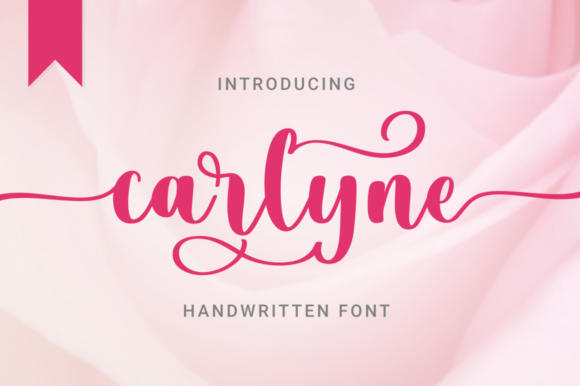
The Perfect Blend of Whimsy and Charm: Discovering the Carlyne Font
There’s something magical about a handwritten font that can evoke a sense of nostalgia and warmth. It’s the kind of font that makes you feel like you’re writing a heartfelt letter to a loved one, or crafting a beautiful wedding invitation that will be treasured for years to come. For designers, finding the right font can be a game-changer – and that’s exactly what the Carlyne Font offers.
With its soft and delicate feel, the Carlyne Font is perfect for creating gorgeous stationery art, eye-catching social media posts, and cute greeting cards. And the best part? It’s PUA encoded, making it incredibly easy to access all of the glyphs and swashes you need to bring your designs to life.
- Font Family: Carlyne
- Font Style: Script
- Unique Characteristics: Designed by Laura Worthington, a modern, elegant script font ideal for invitations, wedding stationery, and other formal events
Designer Review: Carlyne Font
Overall, I think Carlyne Font is a nice addition to any design project, especially for those who want a subtle yet elegant touch. ✨ The font’s curved lines and rounded edges give it a friendly and approachable feel that can work well for various applications, from branding to editorial content.
- ✨ The font’s flexibility in terms of size and spacing allows for a lot of creative freedom.
- ✨ Carlyne Font’s clean lines make it easy to read, even at smaller font sizes.
- ✨ The font’s rounded edges give it a unique and memorable look that can help brands stand out.
- ⚠️ Carlyne Font may not be the best choice for projects that require a lot of bold, attention-grabbing typography.
- ⚠️ The font may not be suitable for projects that require a lot of condensed or compressed text.
- ⚠️ Carlyne Font’s rounded edges can sometimes make it difficult to read at very small sizes.
Overall, I think Carlyne Font is a solid choice for designers who want a versatile and elegant font that can add a touch of sophistication to their projects. While it may have some limitations, it’s definitely worth considering for the right projects.
- Use Carlyne font for titles and headings to add a touch of elegance.
- Combine Carlyne font with other fonts for a unique and eye-catching design.
- Use Carlyne font for titles and headings to add a touch of sophistication.
- Use Carlyne font for titles and headings to add a touch of professionalism.
- Combine Carlyne font with other fonts to create a visually appealing design.
Carlyne font is ideal for:
- Branding and
Alternatives to Carlyne Font
Playfair Display is a high-end script font that is perfect for creating elegant and luxurious designs. It has a more formal and sophisticated feel compared to Carlyne Font, making it ideal for wedding invitations, luxury brands, and high-end marketing materials.
Comparison: While Carlyne Font is more versatile and can be used for a wide range of designs, Playfair Display is more suited for formal and high-end designs. Carlyne Font has a more modern feel, whereas Playfair Display has a classic and vintage feel.
Copperplate is a elegant and refined script font that is perfect for creating sophisticated and luxurious designs. It has a more classic and vintage feel compared to Carlyne Font, making it ideal for high-end fashion brands, luxury watches, and fine jewelry.
Comparison: While Carlyne Font is more modern and versatile, Copperplate is more suited for formal and high-end designs. Copperplate has a more delicate and refined feel, whereas Carlyne Font has a more bold and modern feel.
Bellissima Script
Bellissima Script is a elegant and sophisticated script font that is perfect for creating high-end and luxurious designs. It has a more modern and refined feel compared to Carlyne Font, making it ideal for fashion brands, beauty products, and high-end marketing materials.
Comparison: While Carlyne Font is more versatile and can be used for a wide range of designs, Bellissima Script is more suited for formal and high-end designs. Bellissima Script has a more elegant and sophisticated feel, whereas Carlyne Font has a more modern and bold feel.